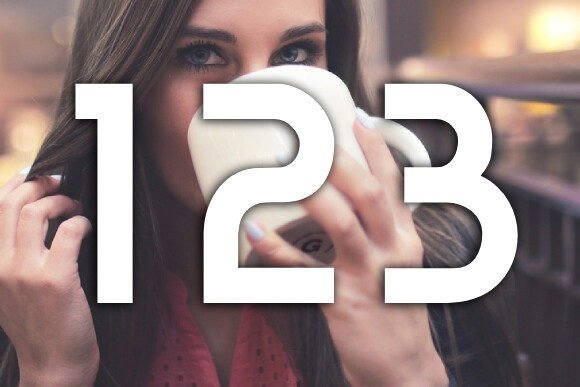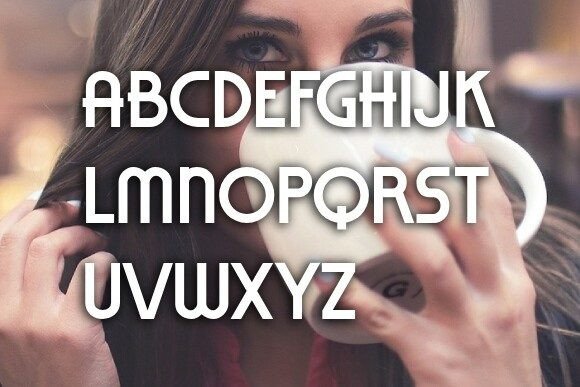
The Bauhaus Font: A Geometric Marvel for Your Designs
I’ll never forget the time I was working on a project for a client who wanted a modern, edgy look. I had spent hours browsing through font libraries, but nothing seemed quite right. That’s when I stumbled upon the Bauhaus font. Its unique geometric shapes and clean lines immediately caught my eye, and I knew I had found the perfect fit. In this article, I’ll share my experience with the Bauhaus font, its features, and how to make the most of it in your designs.
- ✨ Unique geometric shapes that add a touch of modernity to any design
- ✅ Clean lines and minimal ornamentation make it easy to read and versatile
- 💡 Works great with a variety of design elements, from simple text to intricate graphics
While the Bauhaus font is an excellent choice for many designs, there are a few things to keep in mind:
- 🤔 May not be the best choice for very small text, as the geometric shapes can become distorted
- ⚠️ Limited character set, so be mindful of special characters and glyphs
The Bauhaus font was inspired by the Bauhaus movement, a revolutionary art school that emerged in Germany in the early 20th century. The movement’s emphasis on clean lines, minimal ornamentation, and functional design influenced the development of modern typography. The Bauhaus font takes its cue from this aesthetic, with its geometric shapes and simple, unadorned design.
| What is the Bauhaus font? | The Bauhaus font is a geometric sans-serif font with a unique and modern aesthetic. |
| Is the Bauhaus font suitable for body text? | While the Bauhaus font can be used for body text, it may not be the best choice for very long passages of text. Its geometric shapes can become distorted at small sizes. |
| What are some common design applications for the Bauhaus font? | The Bauhaus font works great on t-shirts, mugs, posters, and other design projects that require a modern and edgy look. |